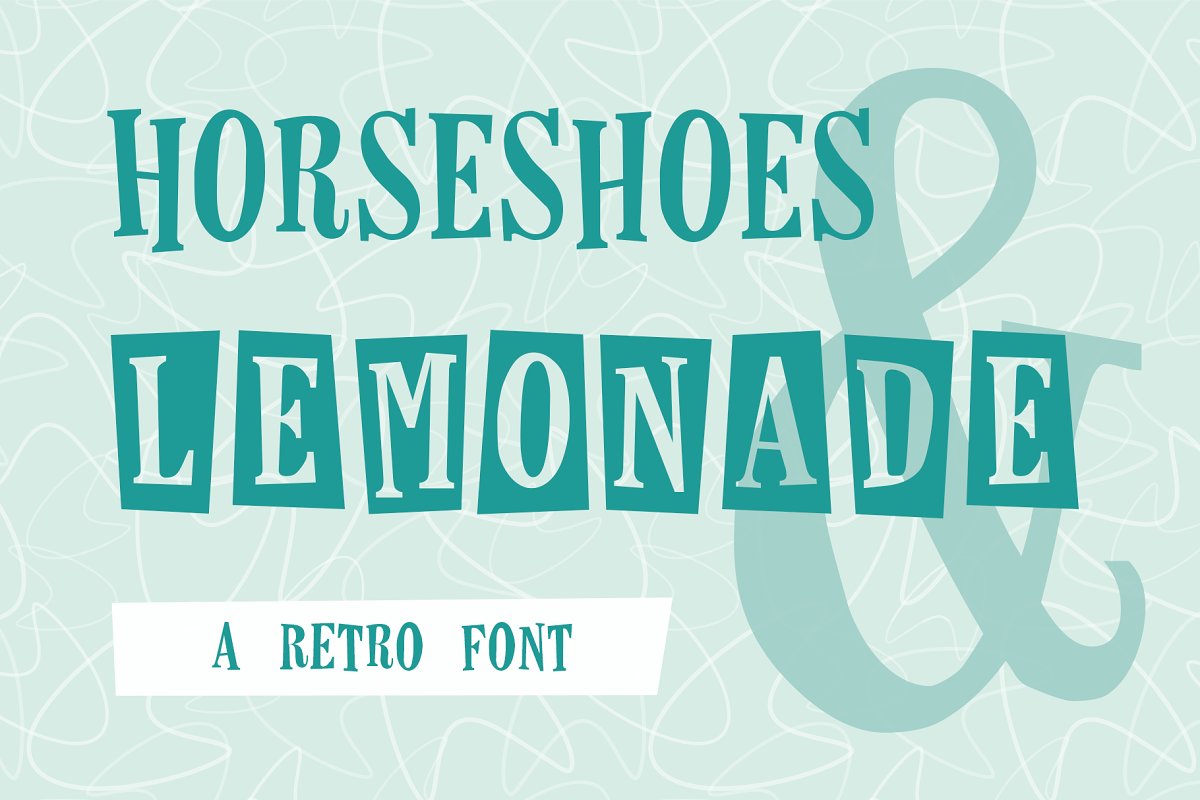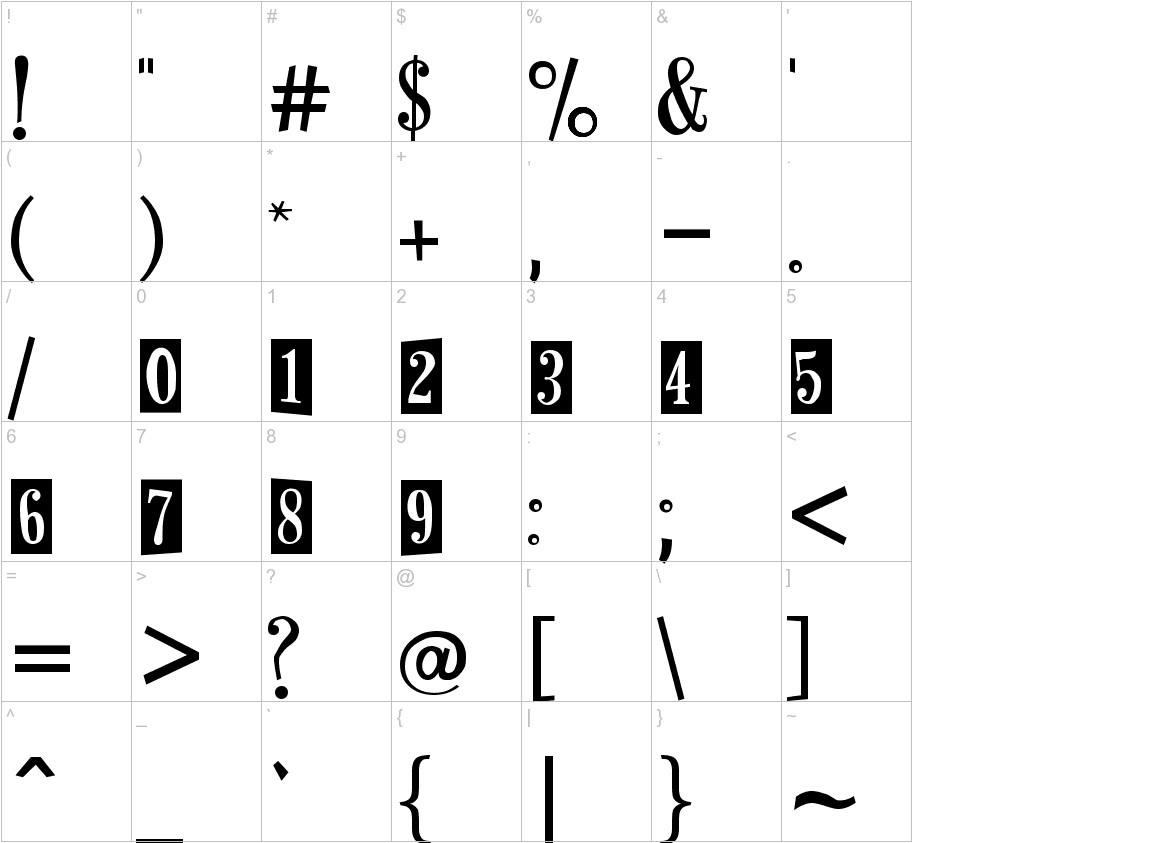
Lemonade And Horseshoes Font . Some of them feature even more dramatic angles, and the uneven,. Download horseshoes and lemonade font free! Horseshoes and lemonade by lauren ashpole. Download and install the horseshoes and lemonade font by lauren ashpole. The horseshoes and lemonade font has been downloaded 32,067 times. The typeface contains 4 files and supports 12 languages. Horseshoes and lemonade is a font. Inspired by vintage fifties and sixties design and advertising, the original horseshoes & lemonade is a serif font with exaggerated angles and an. Inspired by vintage fifties and sixties design and advertising, the original horseshoes & lemonade is a serif font with exaggerated angles and an uneven rectangle background.
Download and install the horseshoes and lemonade font by lauren ashpole. Download horseshoes and lemonade font free! The typeface contains 4 files and supports 12 languages. Inspired by vintage fifties and sixties design and advertising, the original horseshoes & lemonade is a serif font with exaggerated angles and an uneven rectangle background. Horseshoes and lemonade by lauren ashpole. Inspired by vintage fifties and sixties design and advertising, the original horseshoes & lemonade is a serif font with exaggerated angles and an. The horseshoes and lemonade font has been downloaded 32,067 times. Some of them feature even more dramatic angles, and the uneven,. Horseshoes and lemonade is a font.